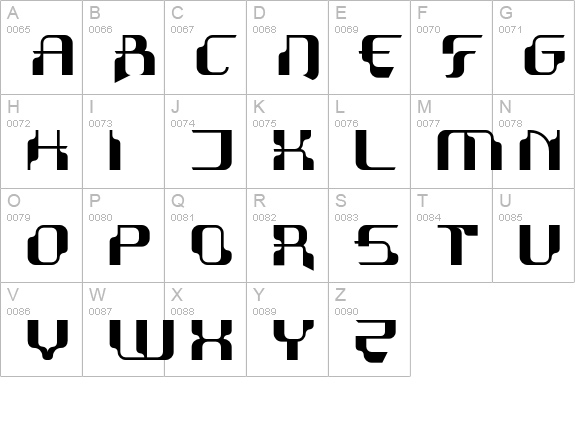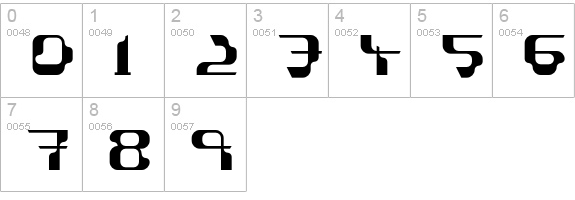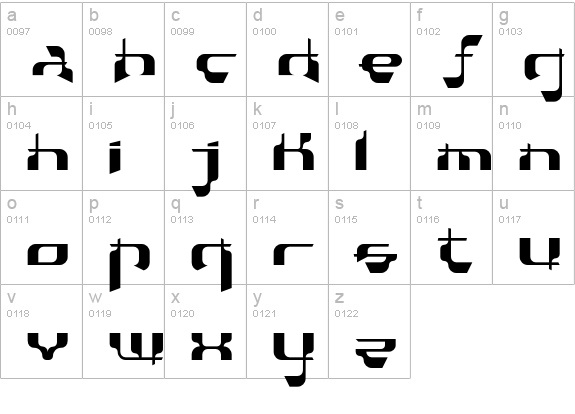
Hyperion Font Details
Hyperion is a modern and elegant font that exudes sophistication and style. Its clean lines and refined curves make it perfect for a wide range of design projects, from elegant invitations to sleek branding materials. The versatility of Hyperion allows it to be used in both digital and print media, ensuring that your message will always be communicated with clarity and grace. What sets Hyperion apart is not only its impeccable design but also the fact that it is free to download at FontsMarket.com. This means that you can elevate your creative projects without breaking the bank. Whether you are a professional designer looking for a new go-to font or a hobbyist seeking to add a touch of class to your personal projects, Hyperion is the ideal choice. Download Hyperion today and discover the power of this stunning font to transform your designs into works of art.